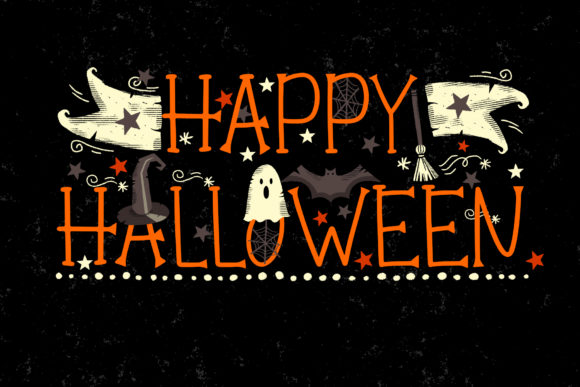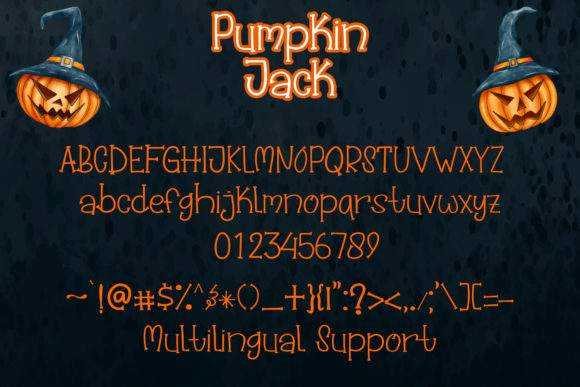
Introduction to Pumpkin Jack Font
As a designer, there’s nothing quite like the thrill of brainstorming a new project, envisioning the perfect font to bring your ideas to life. For many of us, that moment of inspiration often strikes around Halloween, when the spooky atmosphere and creative freedom of the season spark our imagination.
That’s exactly when I fell in love with the Pumpkin Jack Font – a fabulous handwritten font that perfectly captures the essence of Halloween. With its unique blend of spooky charm and high-quality design, it’s no wonder why Pumpkin Jack Font has become a top design resource for creatives around the world.
Pumpkin Jack Font Key Features
- This unique font is designed to add a touch of whimsy and playfulness to any creative project, making it perfect for Halloween-themed designs or illustrations.
- Pumpkin Jack Font is a versatile design element that can be used for various applications, including digital art, print designs, and web graphics.
Honest Review: Pumpkin Jack Font
I recently stumbled upon the Pumpkin Jack Font while searching for a design resource for a creative project. As a designer, I’m always on the lookout for unique and high-quality fonts that can add an extra layer of depth to a design. After giving it a try, I’m excited to share my honest review with you.
- ✨ High-quality design: The Pumpkin Jack Font is beautifully crafted with intricate details and a spooky feel that’s perfect for Halloween-themed projects.
- ⚠️ Limited use cases: While the font is perfect for Halloween-themed projects, its unique design might not be suitable for other types of creative projects.
- ⚠️ Not ideal for small text: The font’s intricate details might make it difficult to read when used for small text sizes.
Overall, I’m impressed with the Pumpkin Jack Font and its potential to elevate creative projects. While it may have some limitations, its unique design and high-quality craftsmanship make it a valuable resource for designers looking to add a touch of whimsy to their designs.
Pumpkin Jack Font
Pumpkin Jack Font is a unique and eye-catching design resource ideal for creative projects that require a seasonal twist. With its free download option, you can incorporate this high-quality font into your designs without breaking the bank.
– Add a touch of autumnal charm to your social media graphics, invitations, and posters.
– Experiment with Pumpkin Jack Font in your vector designs, layer styles, and text effects.
– Enhance your presentations and documents with this font’s transparent background and creative flair.
Tips for Getting the Most Out of Pumpkin Jack Font
To maximize the impact of Pumpkin Jack Font, consider the following tips:
- Pair it with complementary colors to create a cohesive design.
- Experiment with different font sizes and styles to add depth and interest.
- Use the font’s transparent background feature to create layered designs.
Pumpkin Jack Font is perfect for:
- Seasonal marketing campaigns and promotions.
- Autumn-themed invitations and party decor.
- Food and beverage branding for fall-inspired products.